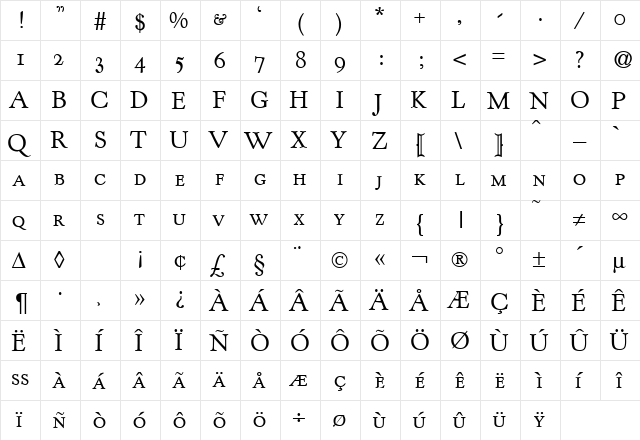
KentuckyOldStyleSmc DB Regular
Design Context for KentuckyOldStyleSmc DB Typeface
KentuckyOldStyleSmc DB carries the refined structure of traditional serif typography, with bracketed terminals and considered proportions that communicate credibility and craft.
Pro Tip: Set KentuckyOldStyleSmc DB with slightly loose tracking in headlines to let each letterform's detail read clearly at display sizes.